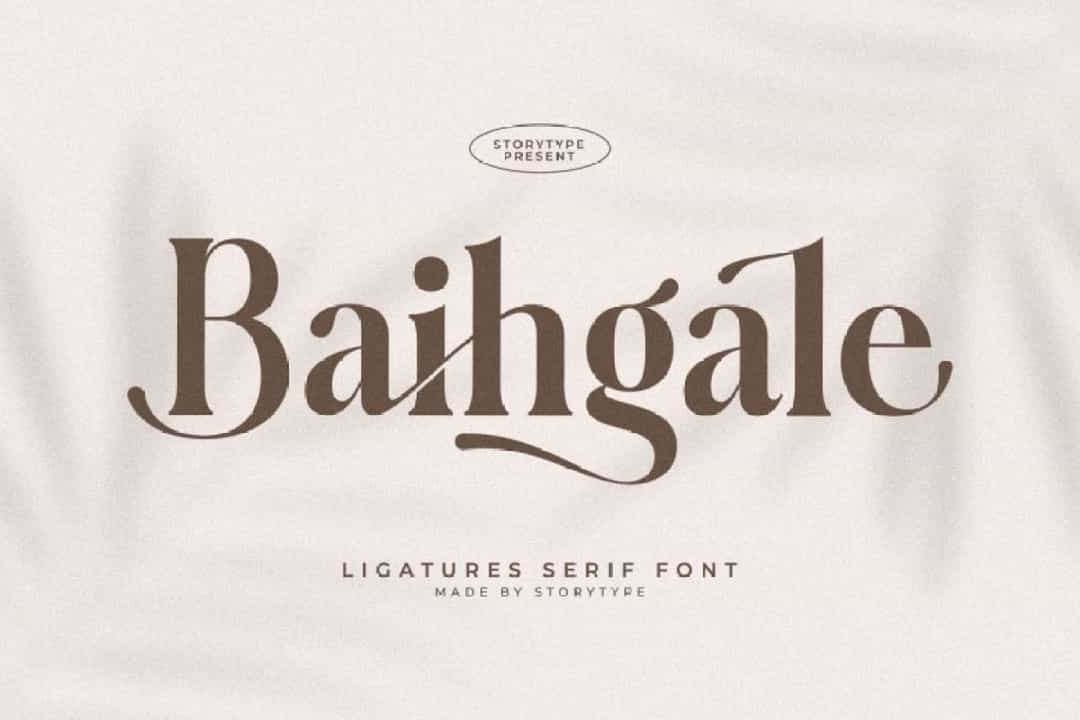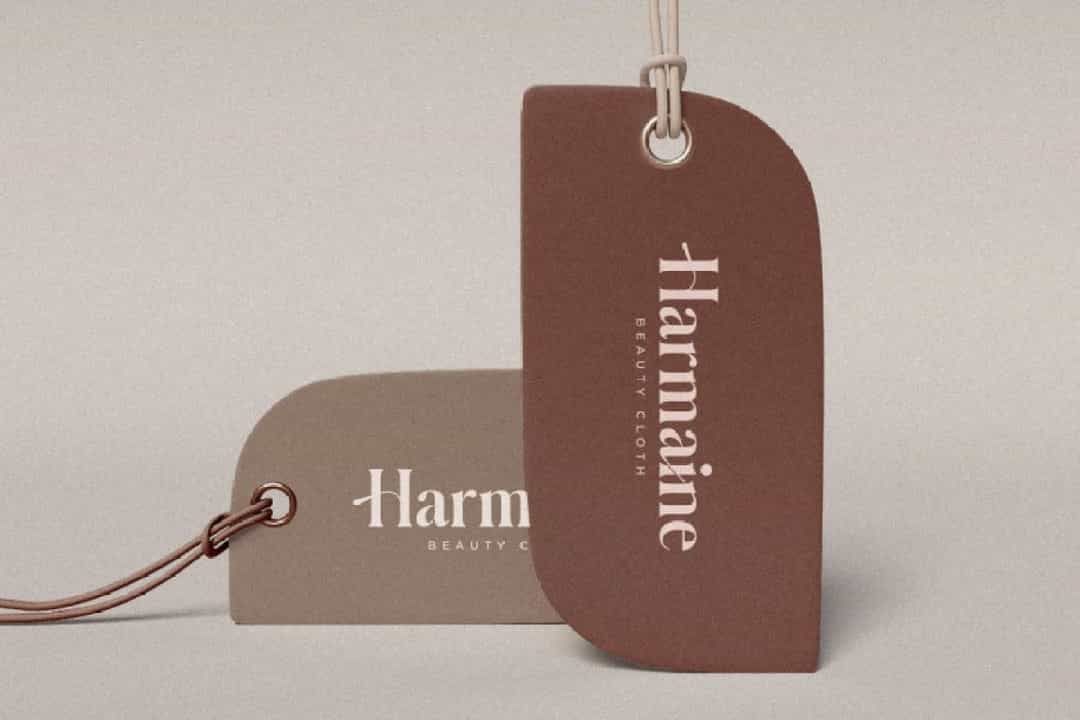
Baihgale is a classic serif typeface with distinctive style and an eye-catching appearance, making it perfect for creating classy and elegant logos, book or film design fashion brand logos, magazine clothing products, lettering quotes and much more.